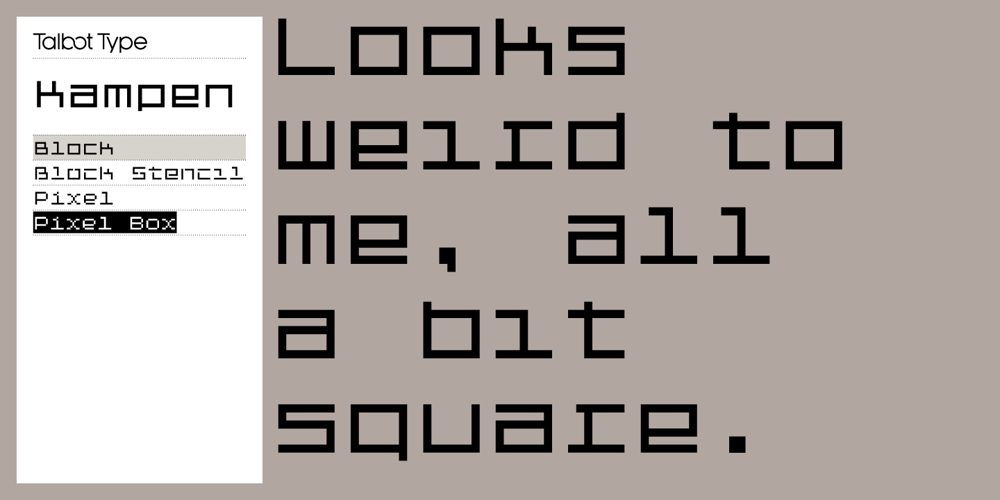
Kampen
Kampen font
Kampen Font Family was designed by Adrian Talbot and published by Talbot Type. Kampen contains 8 styles and family package options. Kampen is a minimal, modular, monospaced font. There are two variants, each available in two styles. The two variants — Block and Pixel — differ considerably in look, however the characters in both are designed using the same 7 x 7 square grid for capital letters, with extra squares above and below for accented characters and lower case descenders.